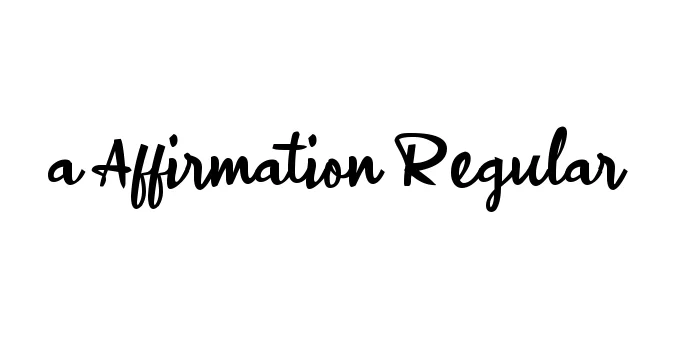
a Affirmation Regular
Designed by Wino S. Kadir
a Affirmation Regular is a sophisticated script typeface that captures the essence of refined, fluid handwriting. Developed with a focus on organic transitions and graceful curves, this font brings a sense of elegance and a personal touch to any creative endeavor. Its rhythmic flow and balanced letterforms make it an excellent choice for designers aiming to convey sincerity, warmth, and high-end style within a modern typographic context.
This typeface is highly celebrated for its application in wedding stationery, luxury branding, and social media aesthetics. The versatility of a Affirmation Regular lies in its ability to remain exceptionally legible while maintaining a hand-drawn character, ensuring that messages remain clear yet visually striking. Whether used for digital headers or printed invitations, it provides a timeless appeal that bridges the gap between traditional calligraphy and contemporary design.
a Affirmation Regular Best Uses
Perfect for creating elegant and personal event stationery.
Ideal for boutique logos and lifestyle brand identities.
Great for aesthetic quotes, stories, and stylish overlays.
Adds a premium, artisanal feel to product labels and wraps.